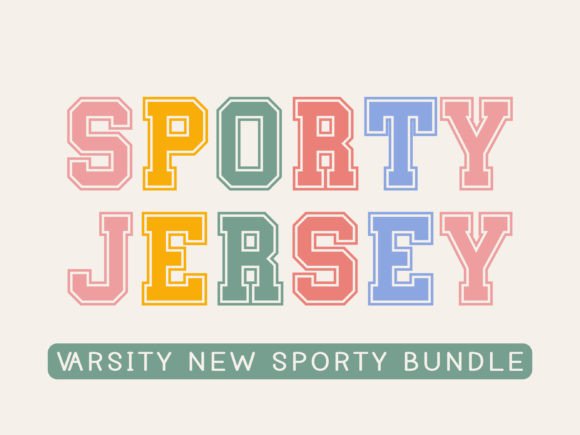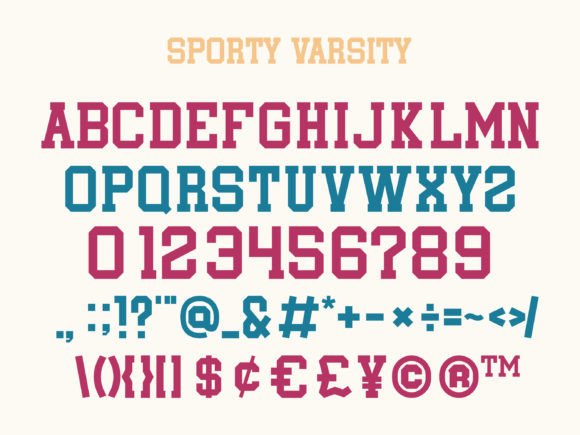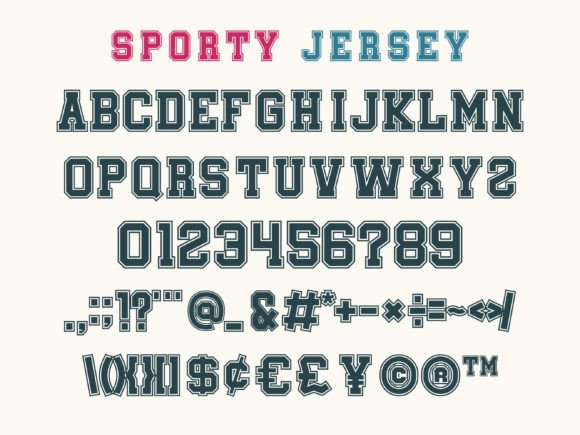
About Sporty Varsity Font
Sporty Varsity Design is a modern and bold display font inspired by college lettering. It is suitable for any winter and holiday branding project, crafting ideas, from cards, to branding, labels product packaging, invitation, quote, t-shirt, poster, text effect, logo and much more.